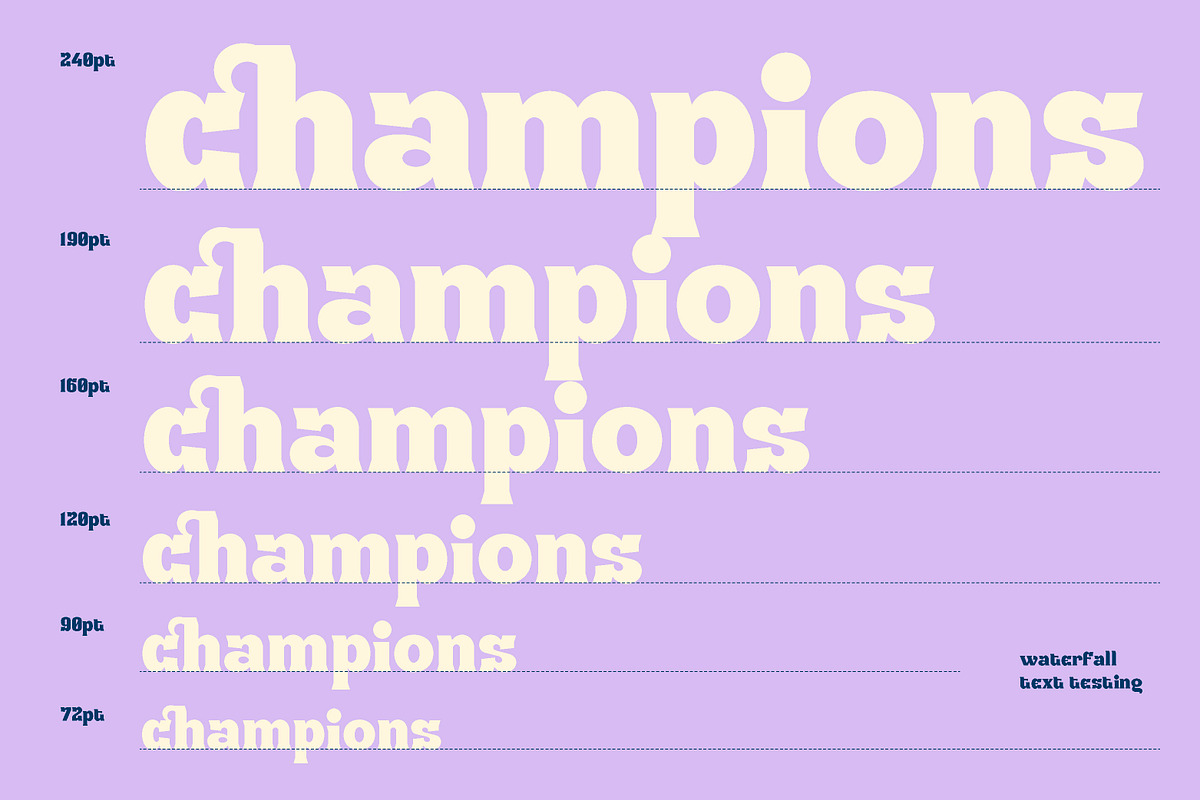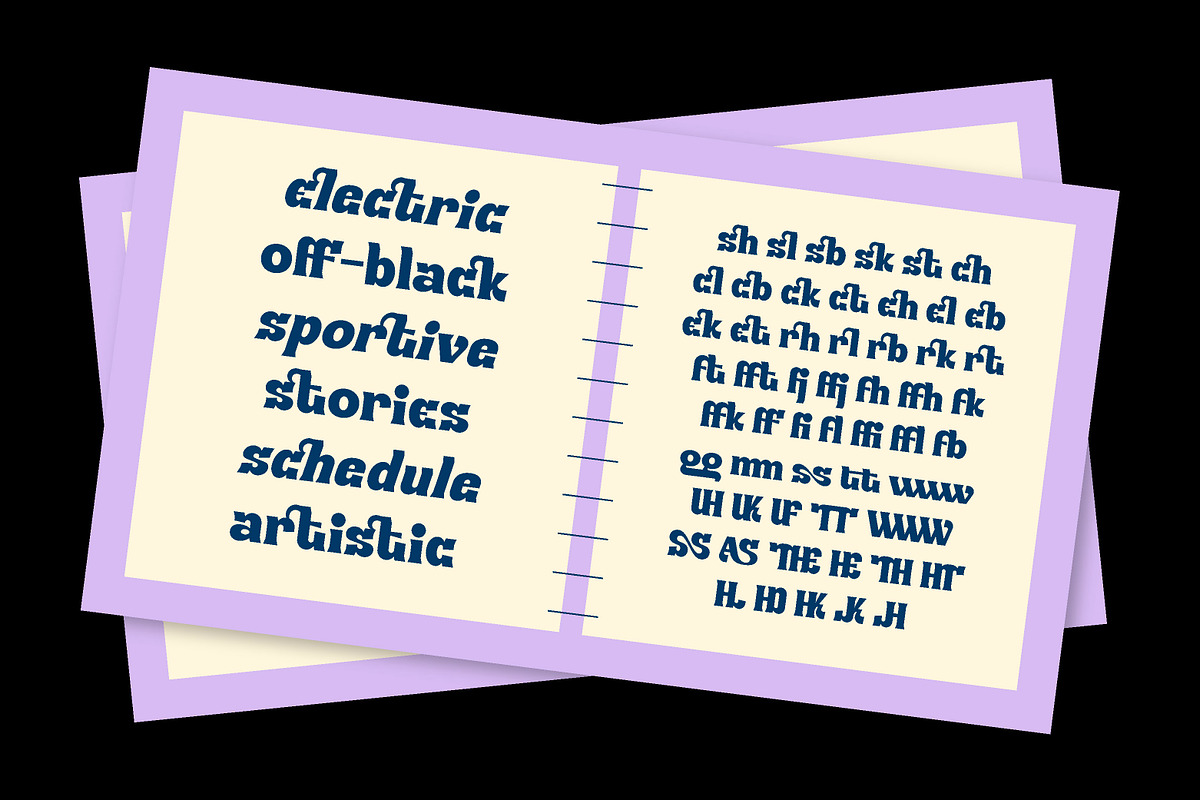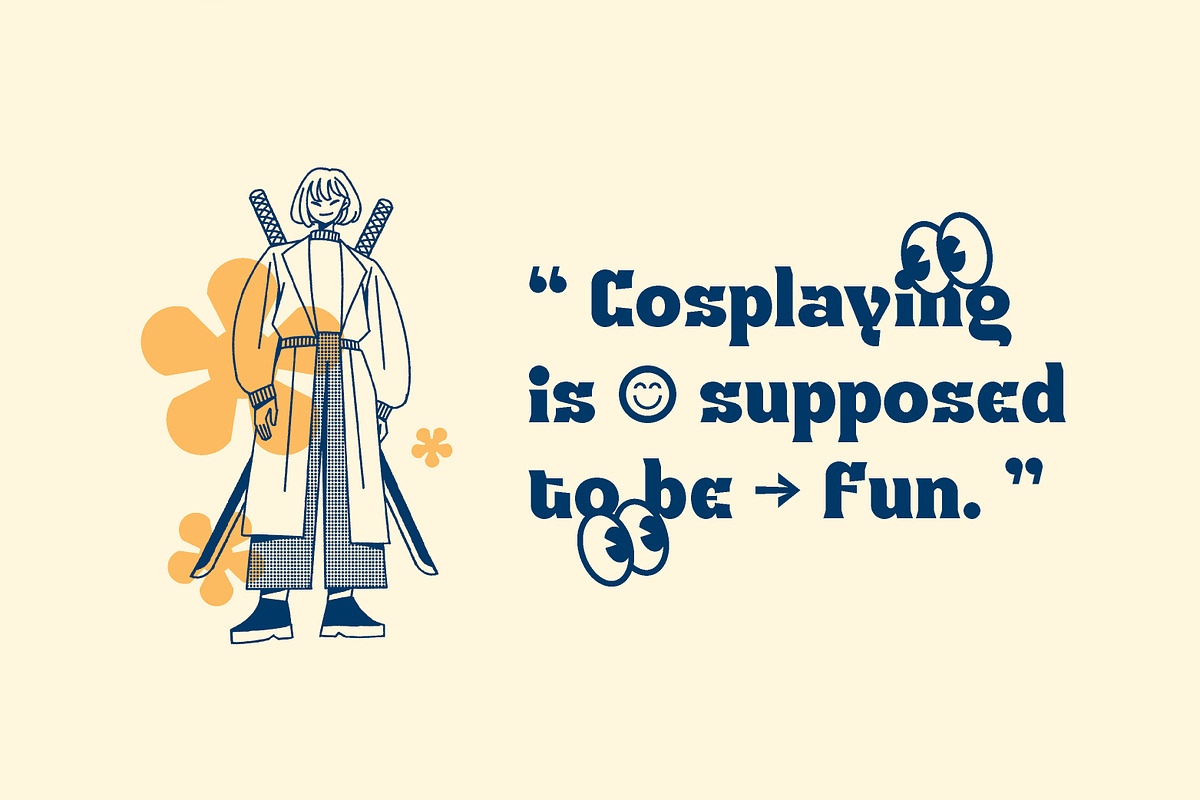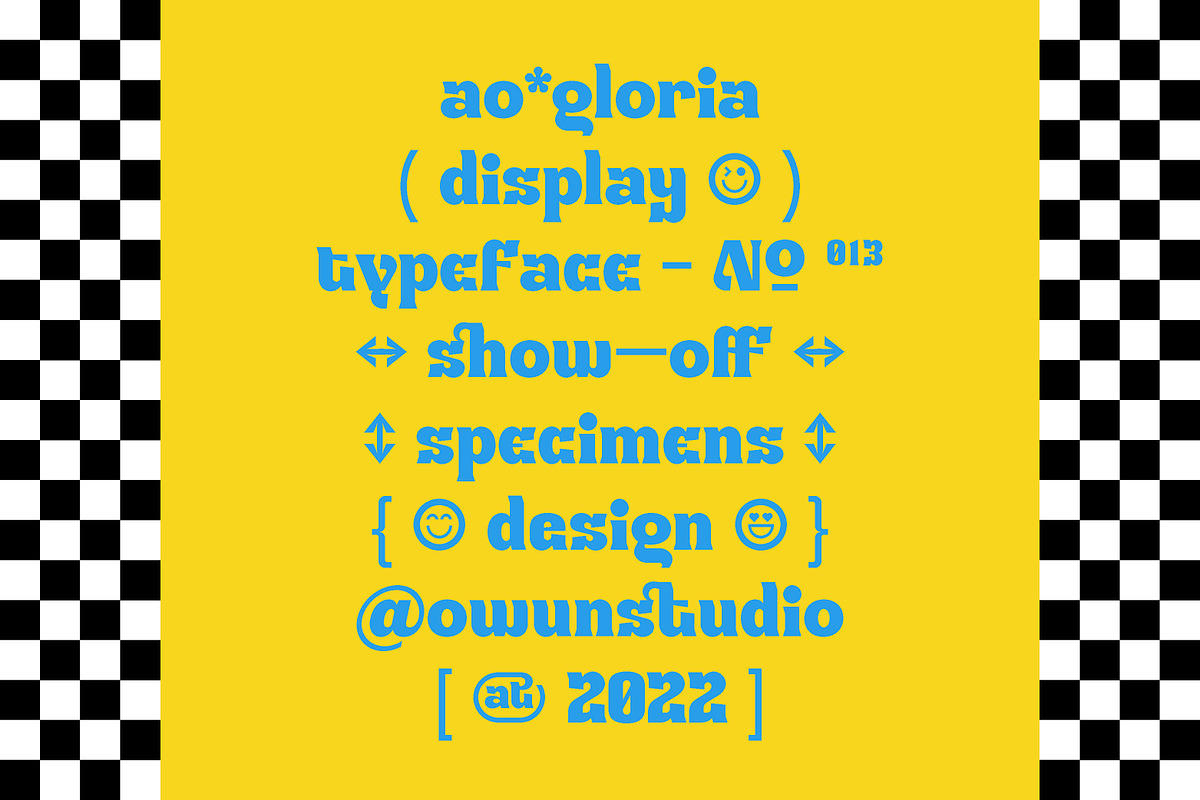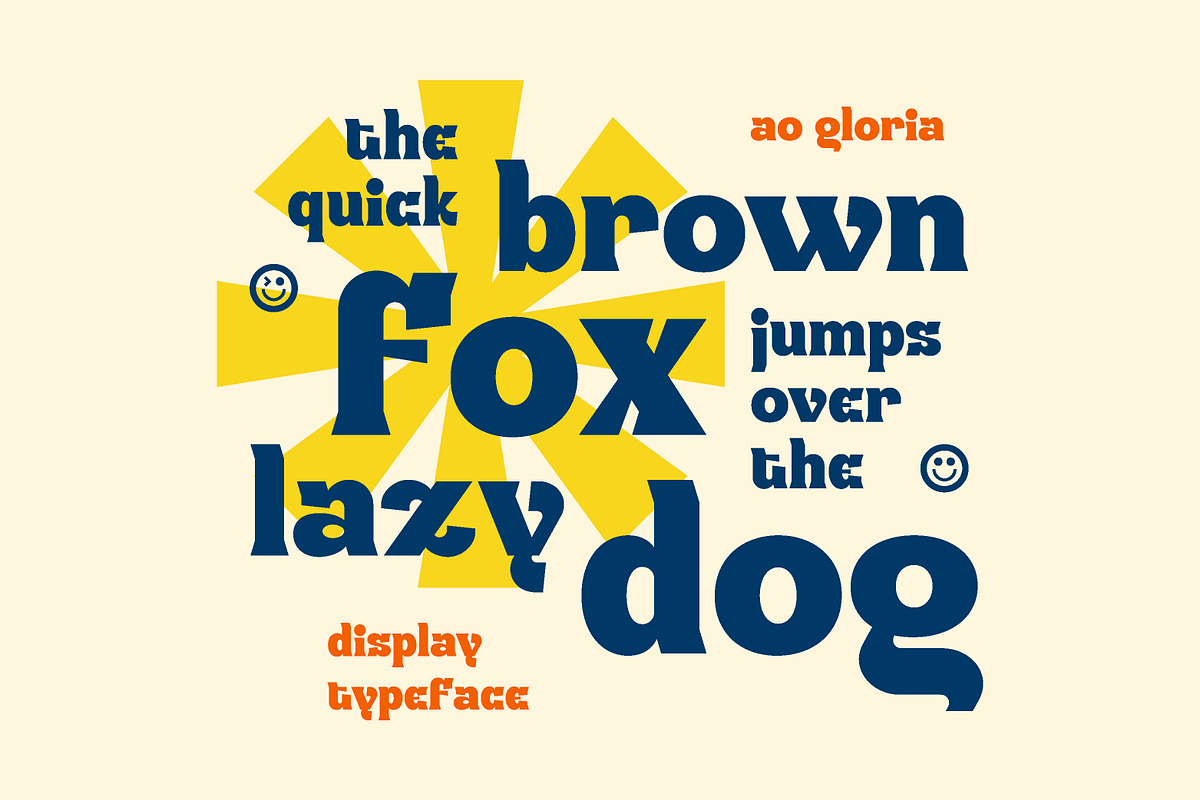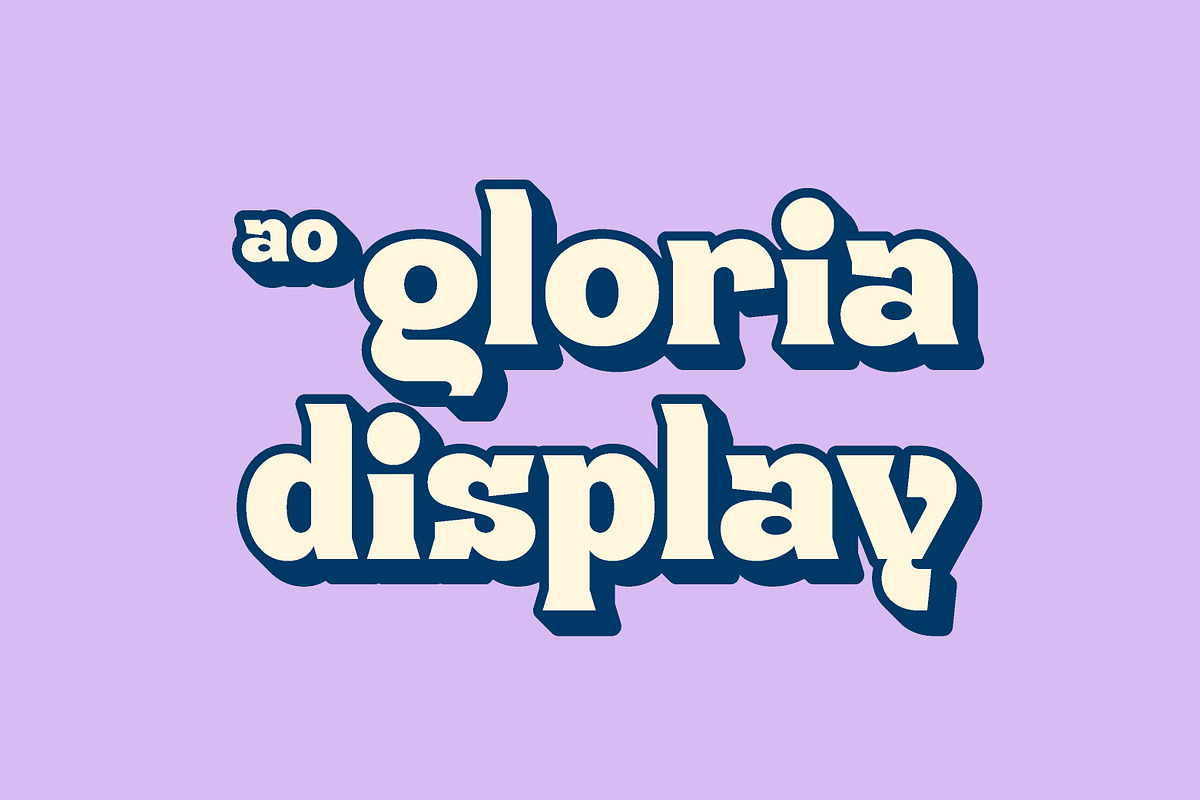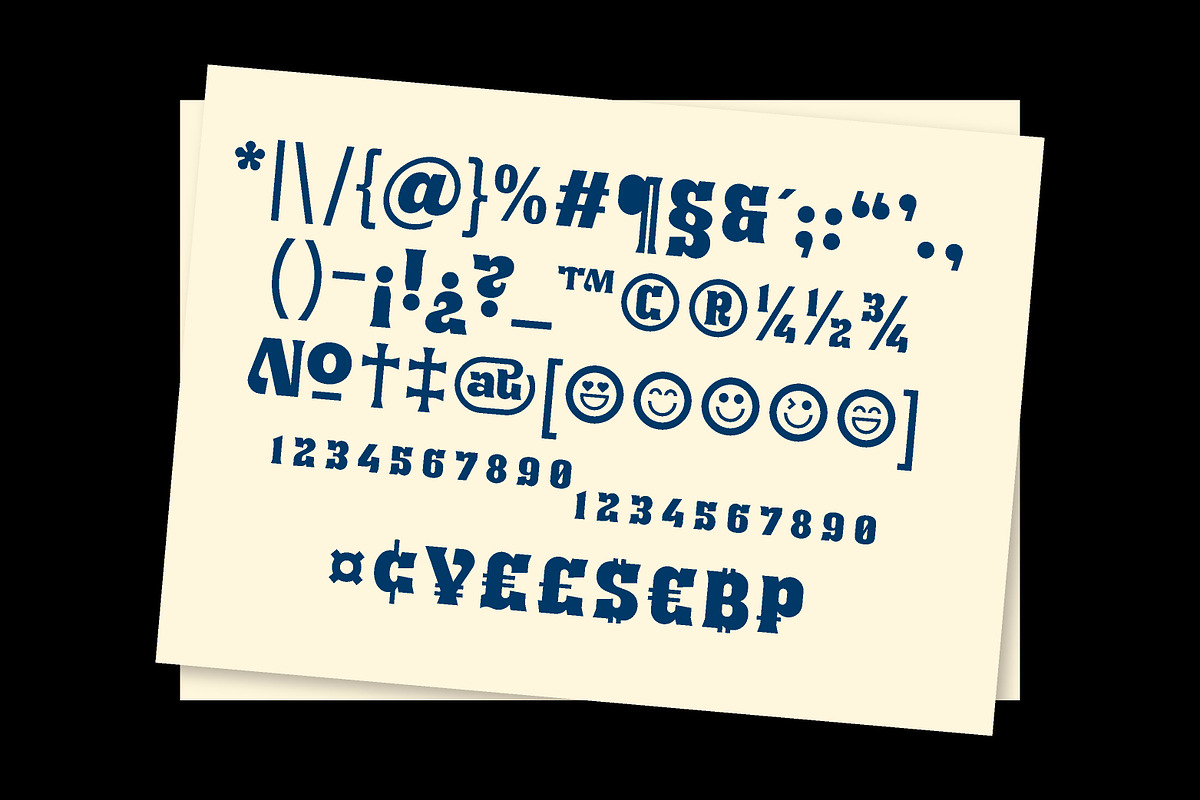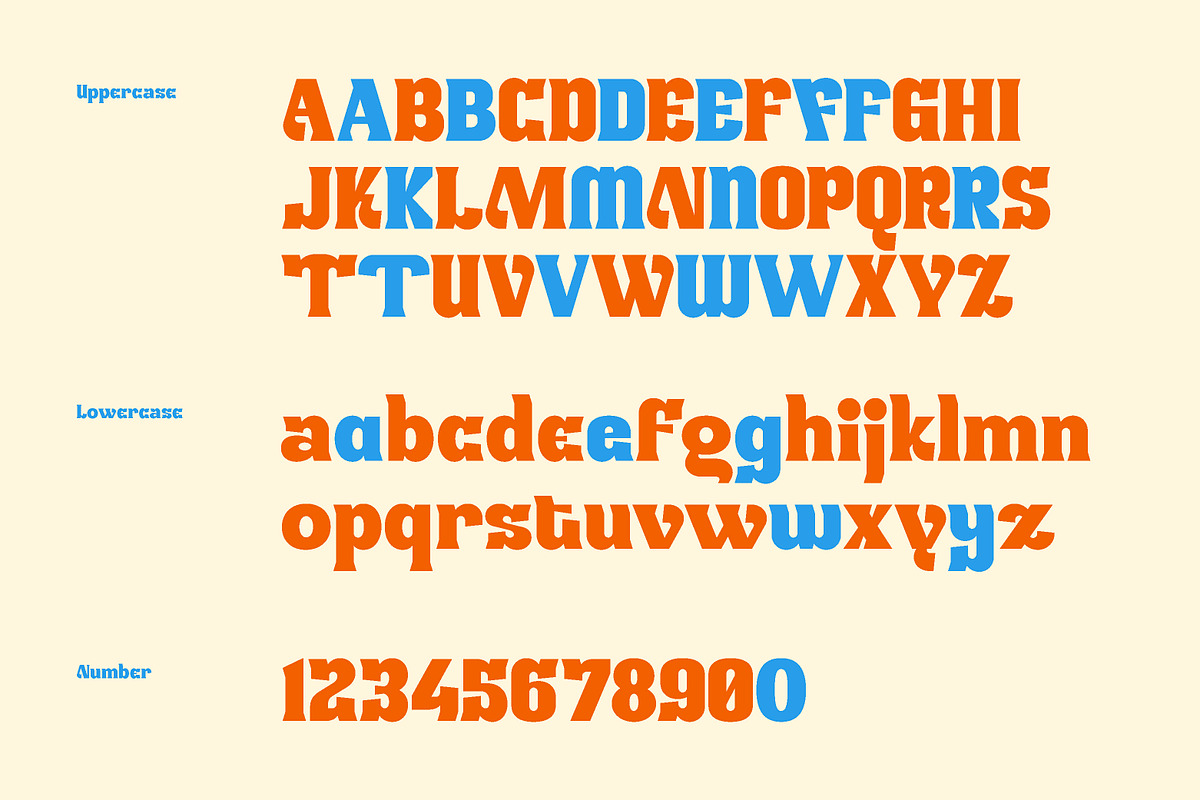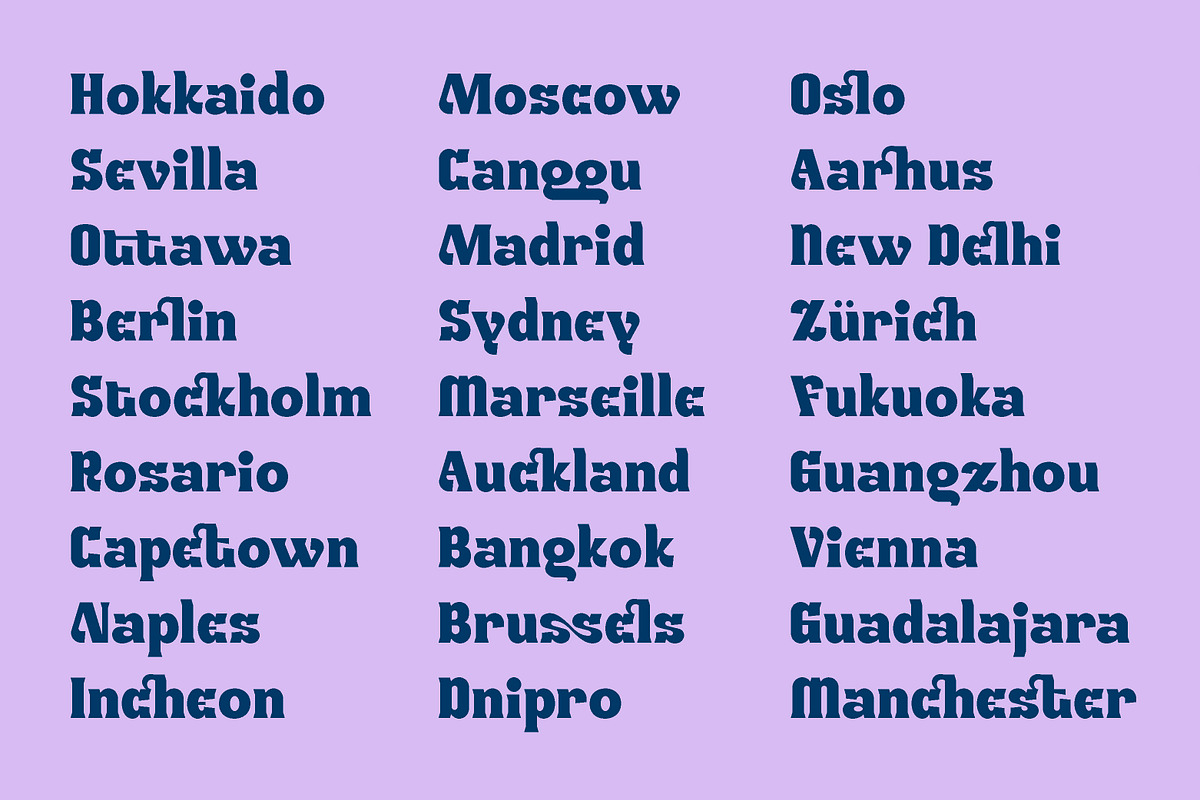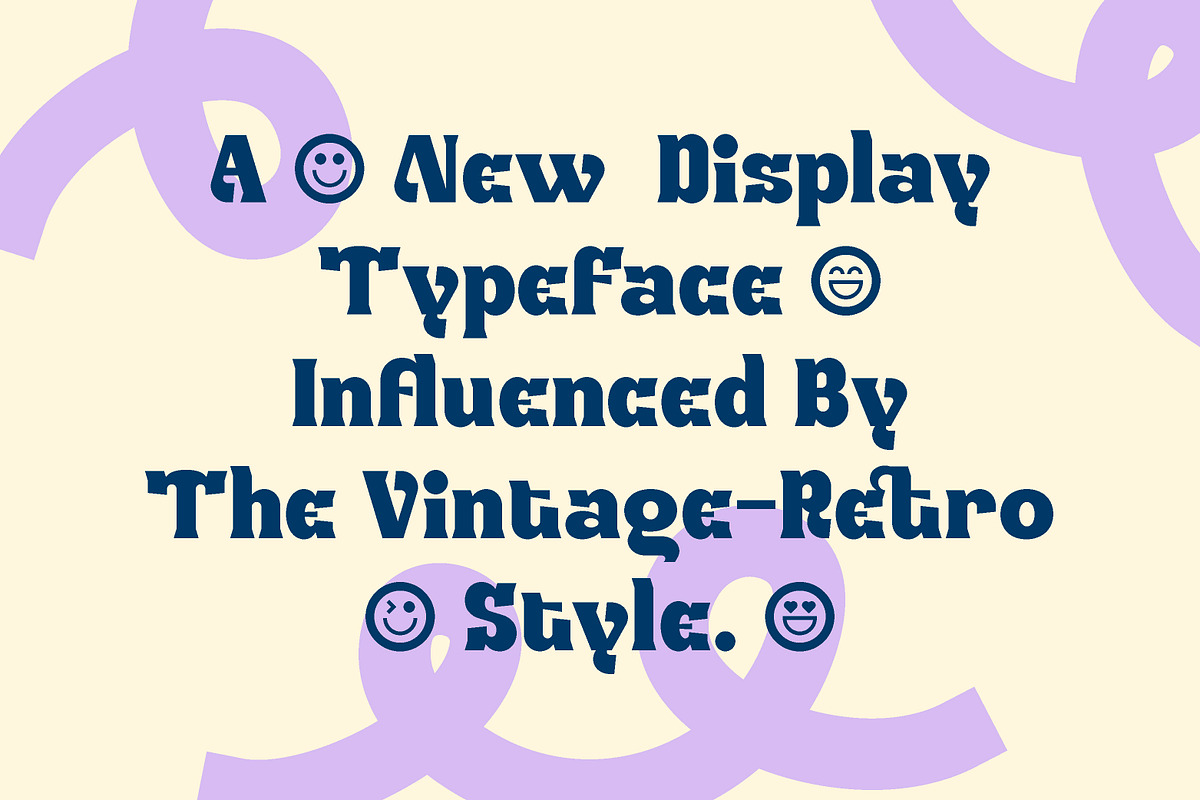
AO Gloria - Display Font
AO Gloria is a bold and fancy typeface. Inspired by a vintage retro typography design style with a modern touch. Built by a quite heavy structure and solid proportions, which can make a unique and hefty impression.
Available in 2 styles regular and oblique in standard version with multi languages support, stylistic ligatures, unique alternates, and some stuff like symbols and basic emoticon are added.
Ideal use for headlines, medium and large prints format, displays, and posters. It can be matched with sans serif fonts as a body text.